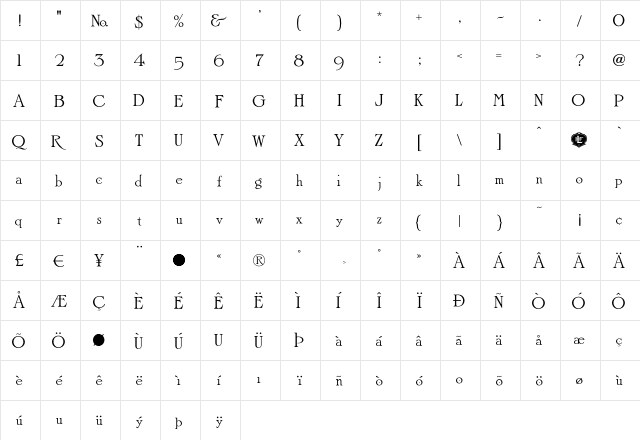
LHFLightFaceRoman Regular
Design Context for LHFLightFaceRoman Typeface
LHFLightFaceRoman takes a measured approach to typography — its balanced proportions and neutral character make it a reliable workhorse for both digital and print work. Its slender proportions lend an understated elegance to any composition.
Pro Tip: Pair LHFLightFaceRoman with a font of contrasting weight or personality to build a more expressive typographic hierarchy.